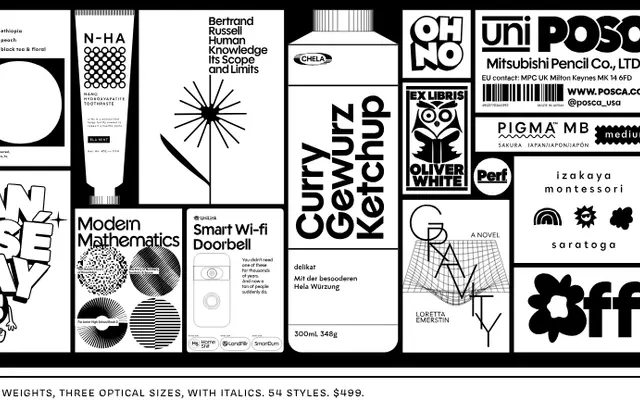
Polymath
Polymath specimen from OH no Type
A geometric sans in three optical sizes with nine weights, extensive OpenType alternates and a variable font, designed by James Edmondson, Colin M. Ford and Jamie Otelsberg between 2021 and 2024.
Developed as a more neutral counterpart to OH no Type's Degular, Polymath takes the geometric sans genre as its starting point with clear Futura lineage, then adds a wide array of stylistic alternates ranging from legibility forms and double-storey a and g, to Bauhaus-influenced characters, gaspipe variants and an uncial-style a. Three optical sizes cover running text, general-purpose setting and large-scale display work, with all nine weights available in roman and italic across each cut. The complete family runs to 54 styles plus a variable font, making it one of the more fully realised geometric sans releases of recent years.
Polymath draws directly from the geometric sans tradition, citing Paul Renner's Futura as a primary reference. Its circular forms and constructed letterforms place it firmly in the geometric sans subcategory, though extensive alternates allow it to move between strict geometric and more humanist registers.